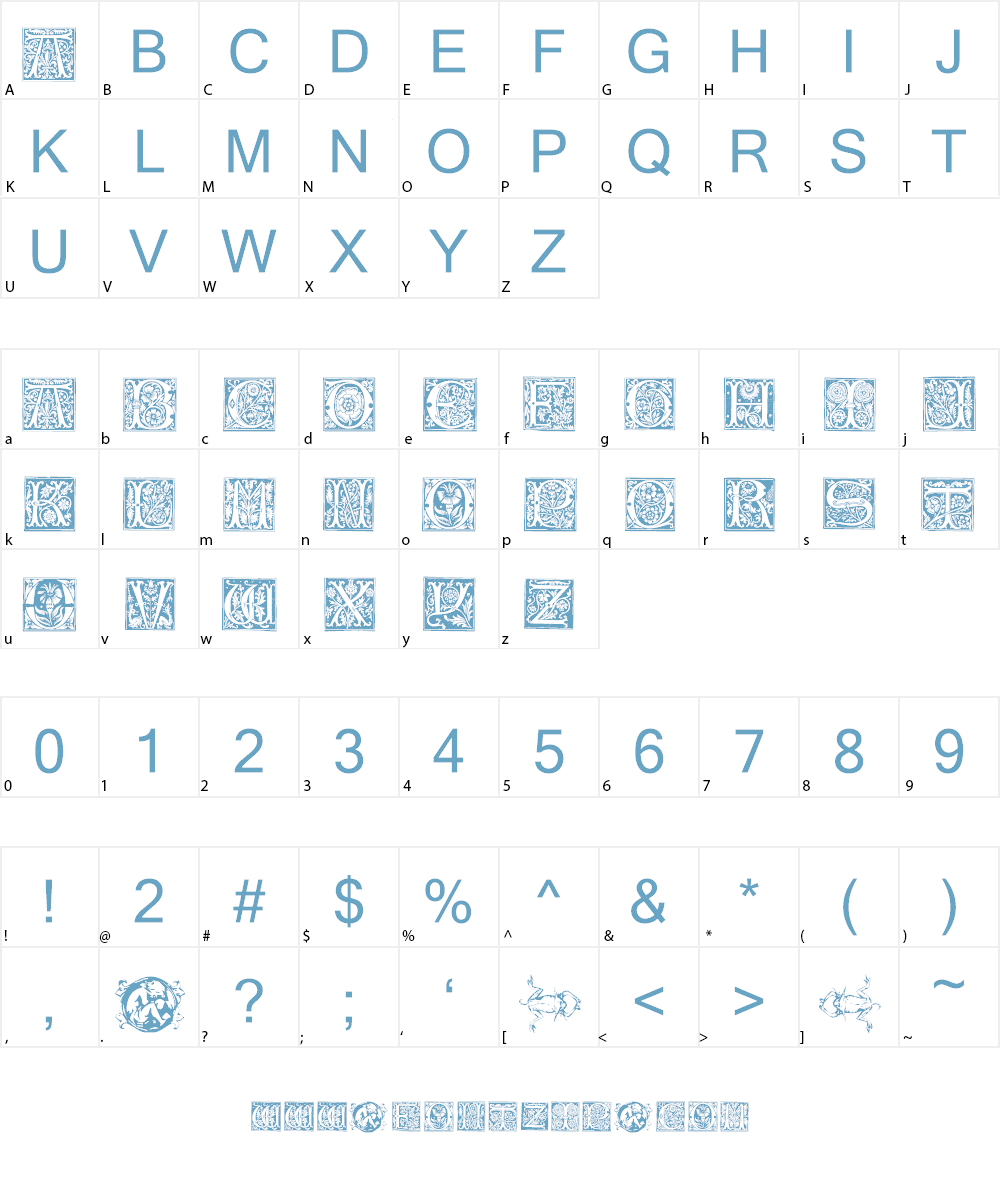
"Vampyres Garden" was inspired from a copy of the Romant de la Rose from the beginning of the 16th century. There are depictions of Dragons, the Belladonna and Atropine blossoms in the lettering. The [ ] keys will produce the goblins featured from "The Tomb" font, but in this set there are two goblins. The period character will produce a cameo. For your typing ease all the characters are in lower case. It is a rather large file, but worth the download.